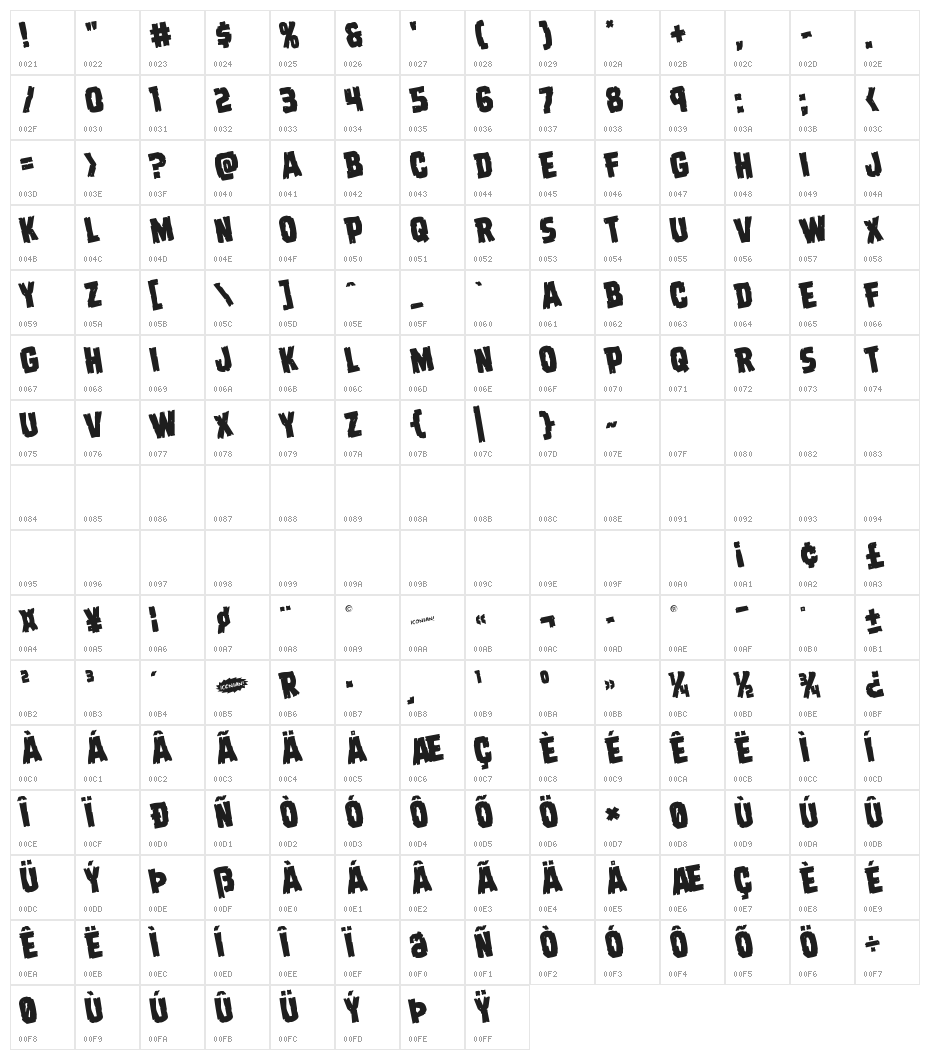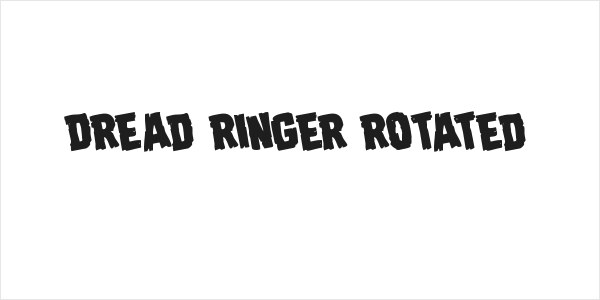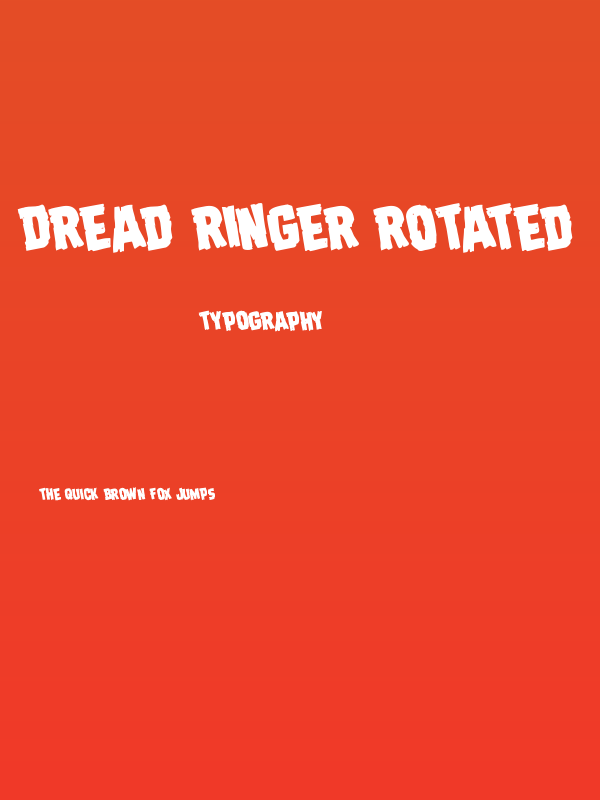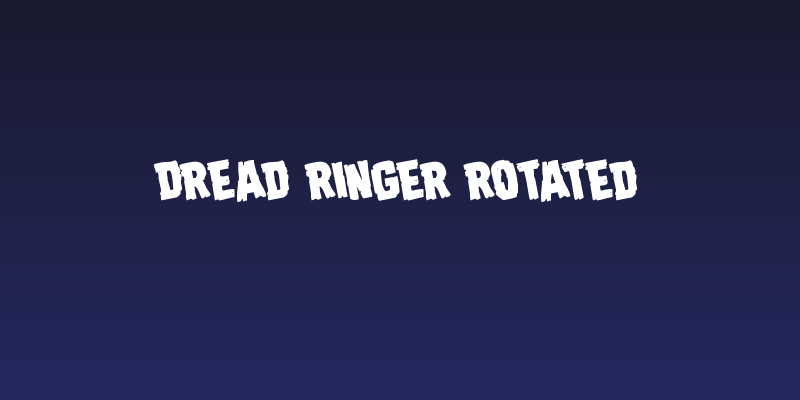
Dread Ringer Rotated Font
Dread Ringer Rotated Description
This font features a bold and rugged design, characterized by its jagged edges and distressed appearance. The letters have an irregular, hand-cut style that gives them a unique, edgy look. The uppercase and lowercase letters maintain a consistent style, with each character exhibiting a rough, textured surface that suggests a sense of movement and energy. The numbers and special characters follow the same aesthetic, making the font cohesive and versatile for various design needs. Its boldness and distinctive style make it stand out, perfect for projects that require a strong visual impact.
| Overall Style | Edgy, Distressed, Bold |
| Proposed Projects | Ideal for horror-themed posters, edgy branding, album covers, and event flyers. |